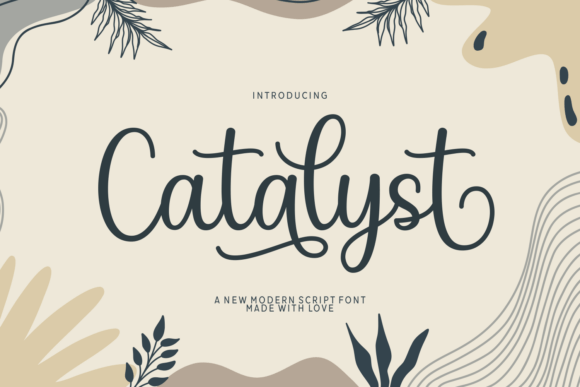
I still remember the frustration of working on a project, hours spent perfecting every detail, only to hit a roadblock when it came to choosing the right font. My client wanted something elegant, yet artistic; something that would make their brand stand out without sacrificing readability. I scoured the internet, tried out countless fonts, but nothing seemed quite right. That was until I stumbled upon the Catalyst Font ✨. Its beautiful script and elegant swashes instantly caught my eye, and I knew I had found the perfect fit.
An Honest Review of Catalyst Font
- ✨ Elegant swashes that add a touch of sophistication to any design
- ✅ Clean lines and smooth curves that make it a joy to read
- 🌈 Versatile and adaptable to various design styles and projects
- 💻 Highly legible, even at smaller font sizes
While Catalyst Font is an excellent choice, it’s not without its quirks. For instance:
- 🤔 Some users may find the swashes a bit too ornate for certain projects
- ⚠️ It may not be the best choice for very long blocks of text, as it can be a bit too decorative
The Story Behind Catalyst Font
Catalyst Font was designed with the intention of creating a beautiful, elegant script font that would inspire creativity and add a touch of sophistication to any design. The designer, inspired by the flowing lines of handwritten calligraphy, aimed to create a font that would be both artistic and highly legible. The result is a font that is perfect for a wide range of design projects, from branding and advertising to packaging and digital media.
Q: What is Catalyst Font?
A: Catalyst Font is a beautiful script font that features elegant swashes and clean lines, making it perfect for adding a stylish touch to your designs.
Q: Is Catalyst Font suitable for body text?
A: While Catalyst Font is highly legible, it’s best suited for shorter blocks of text or headings. For longer blocks of text, a more traditional font might be more suitable.